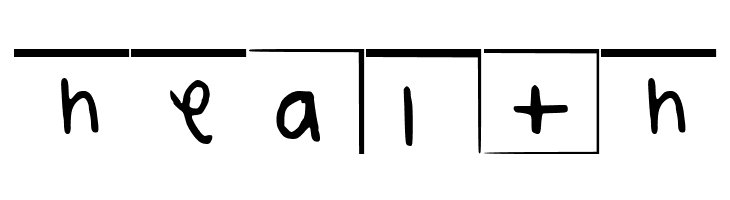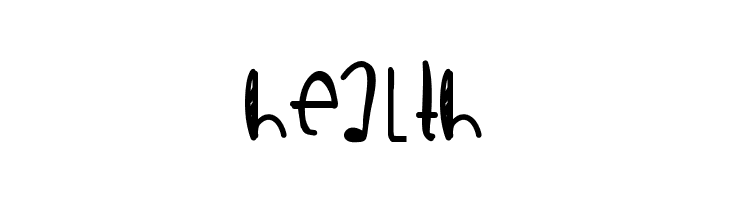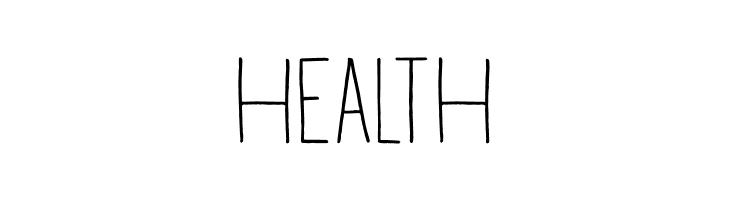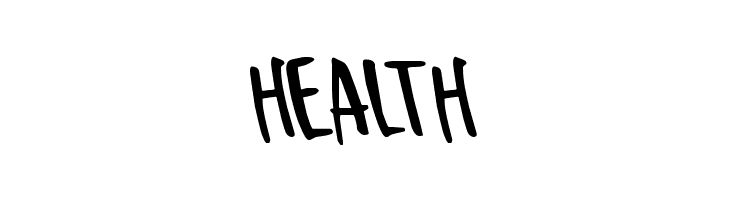
( Fonts by Des Gomez )
A playful, hand-drawn font with quirky, uneven characters and decorative elements.
( Fonts by David Kerkhoff - www.hanodedphotography.com )
A hand-drawn, whimsical font with tall, narrow characters and uneven strokes.
( www.leodsen.com )
A bold, distressed font with rugged, uneven edges and a dynamic style.
( Fonts by Manuel Viergutz - Typo Graphic Design - www.typographicdesign.de )
A bold, graffiti-inspired font with thick, uneven strokes and a hand-drawn style.
A playful, hand-drawn font with bold, uneven strokes and a dynamic slant.
A playful, hand-drawn font with quirky, uneven strokes and a whimsical style.